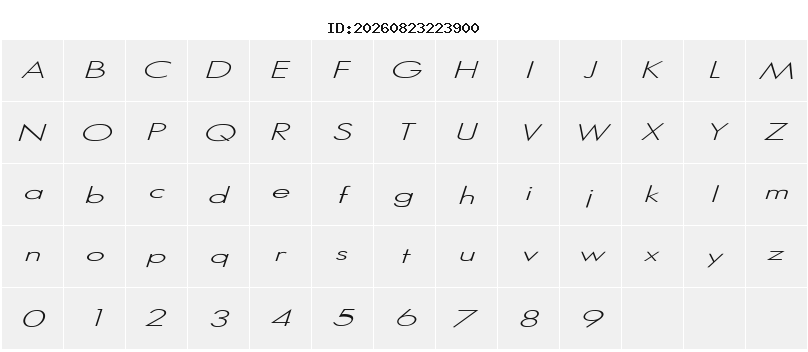
SansSerif-Italic Preview
• Font Name: SansSerif-Italic
• Full Font Name: SansSerif-Italic
• PostScript Name: SansSerif-Italic
About SansSerif-Italic.ttf
SansSerif-Italic.ttf is a modern, elegant sans-serif font designed for ultimate readability and visual harmony. Perfect for branding, headlines, web design, and print materials.